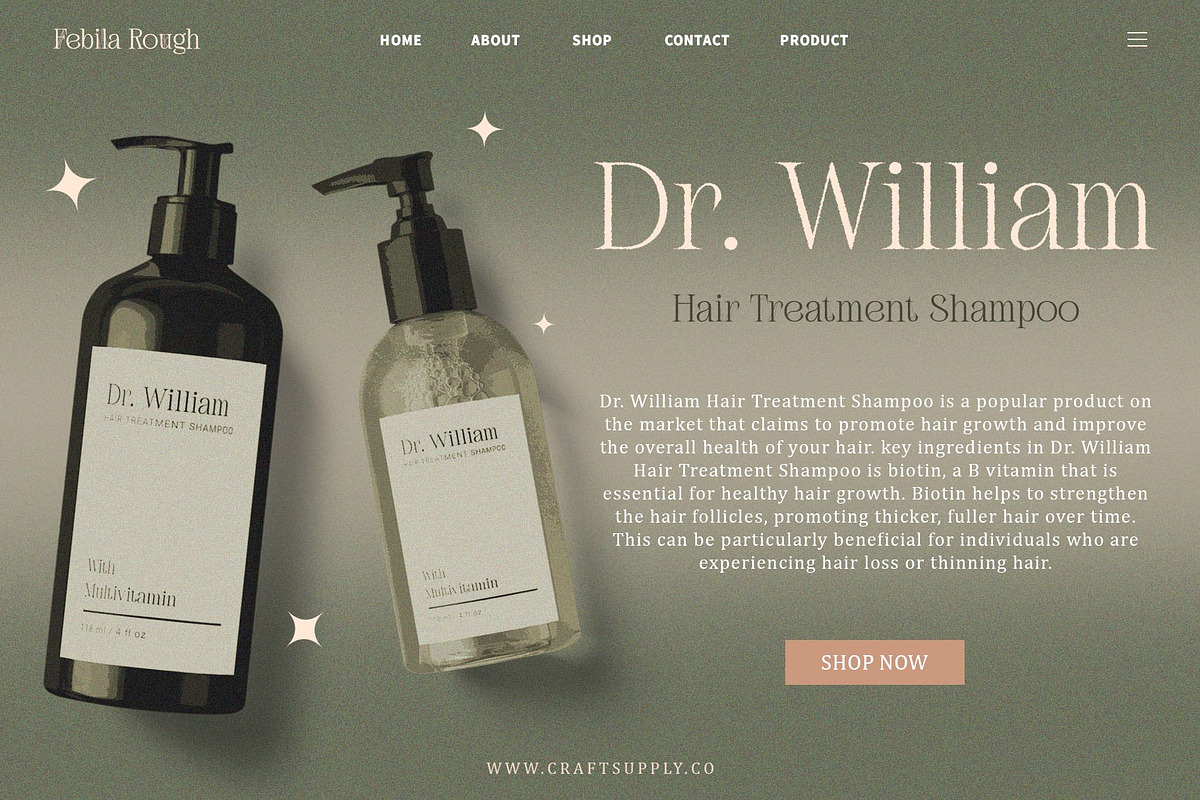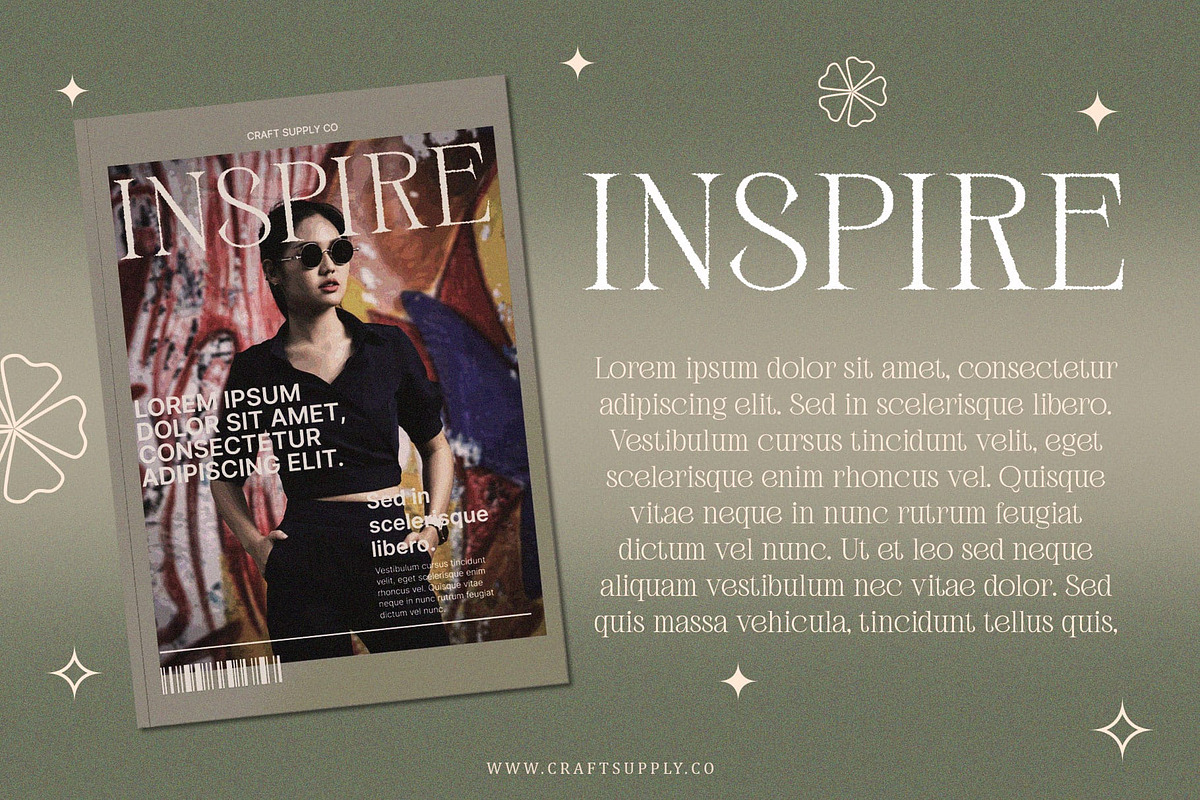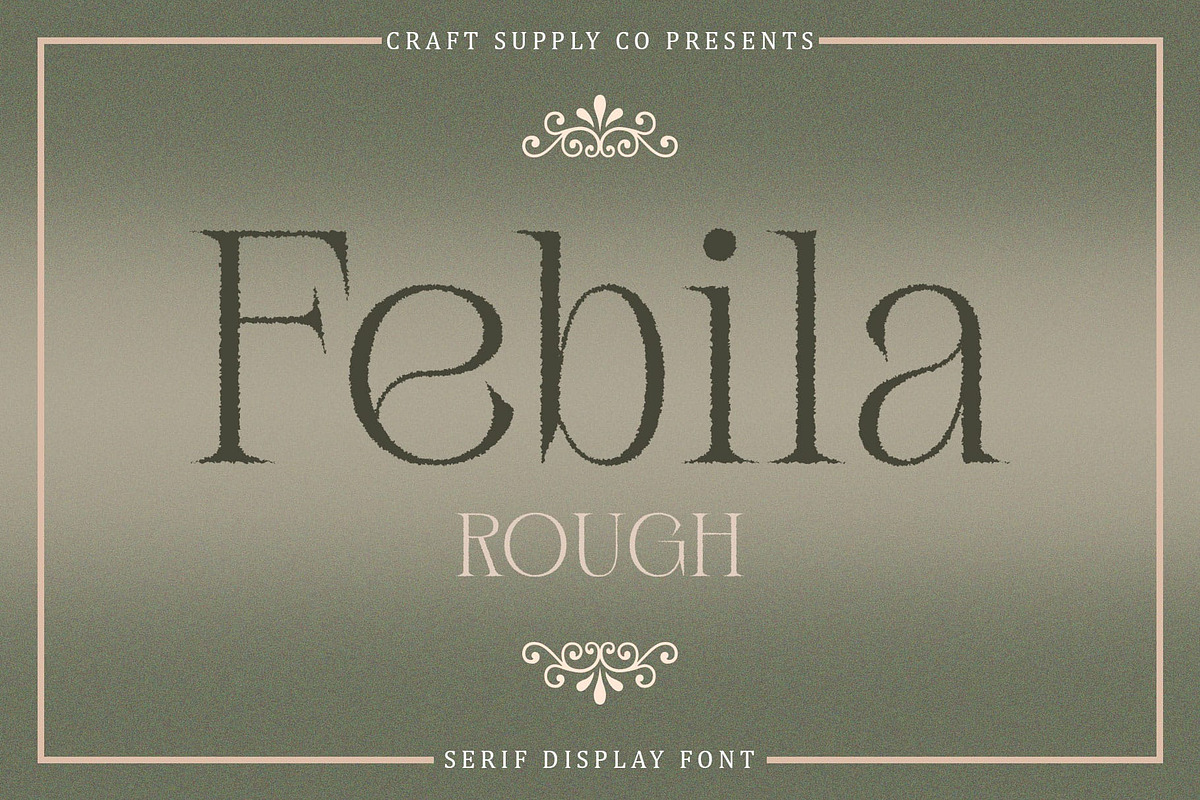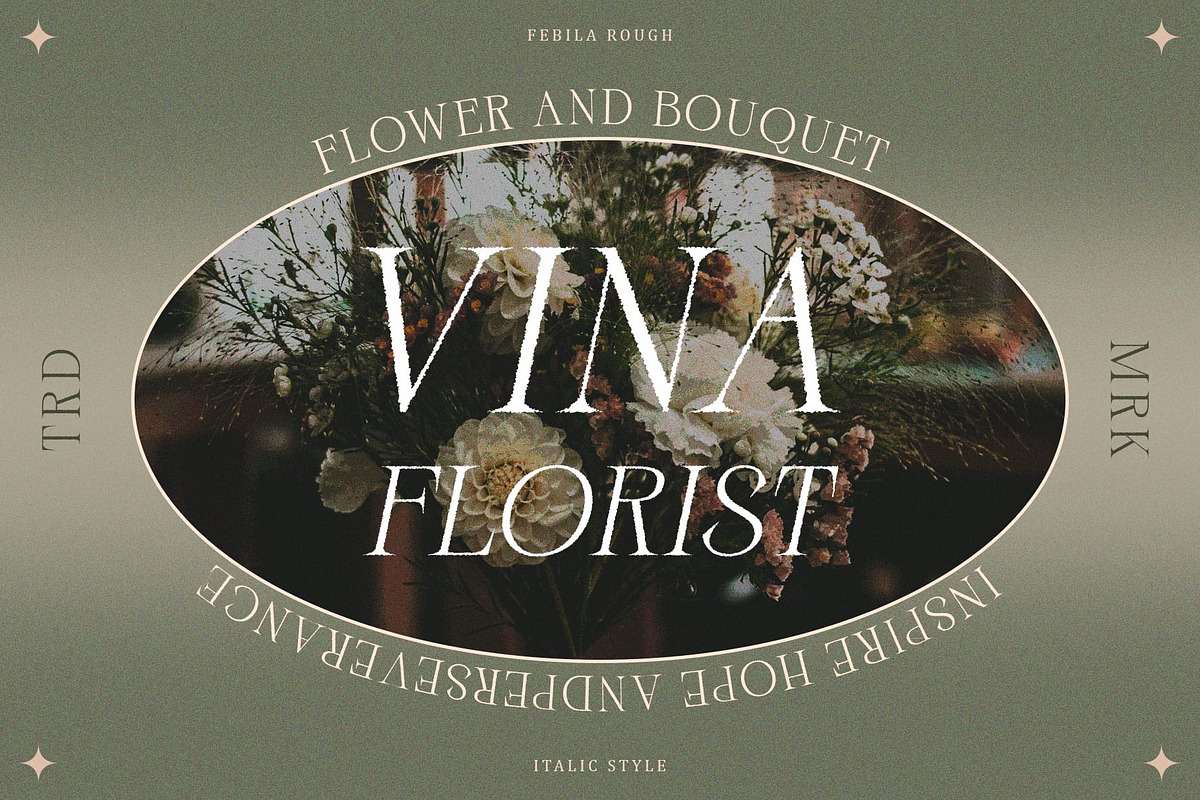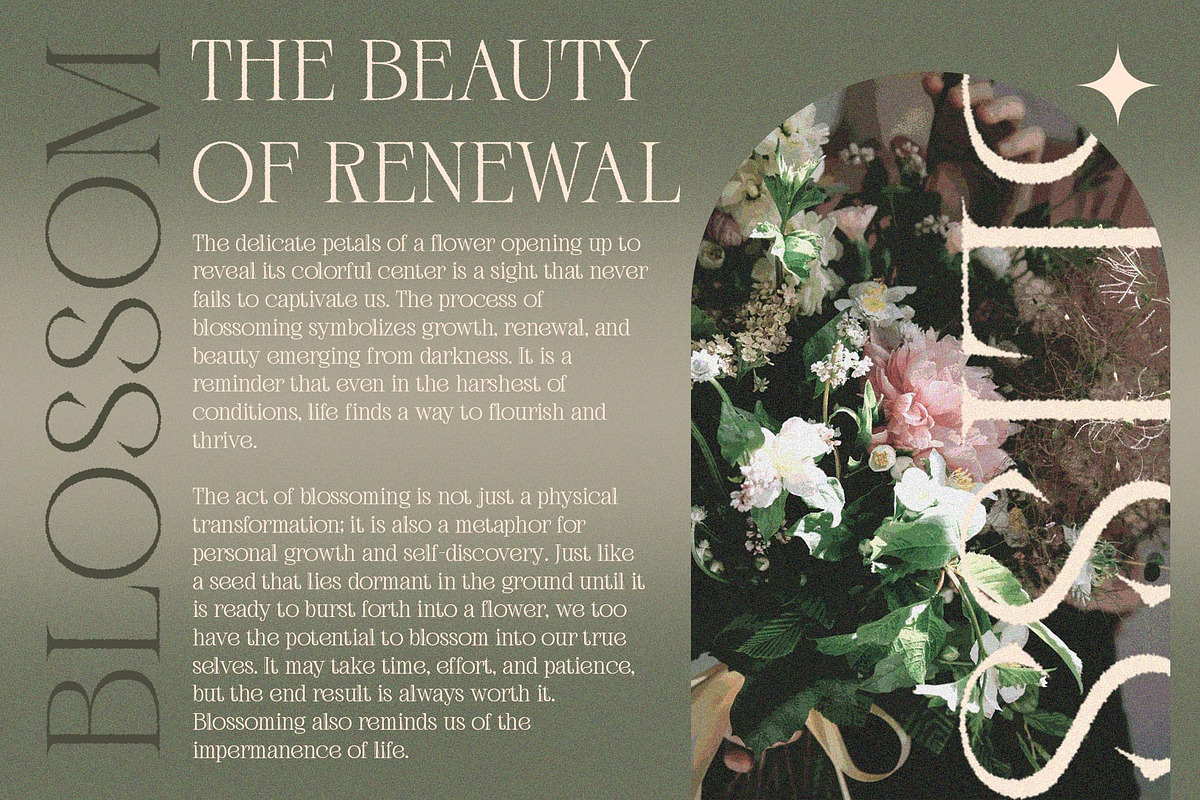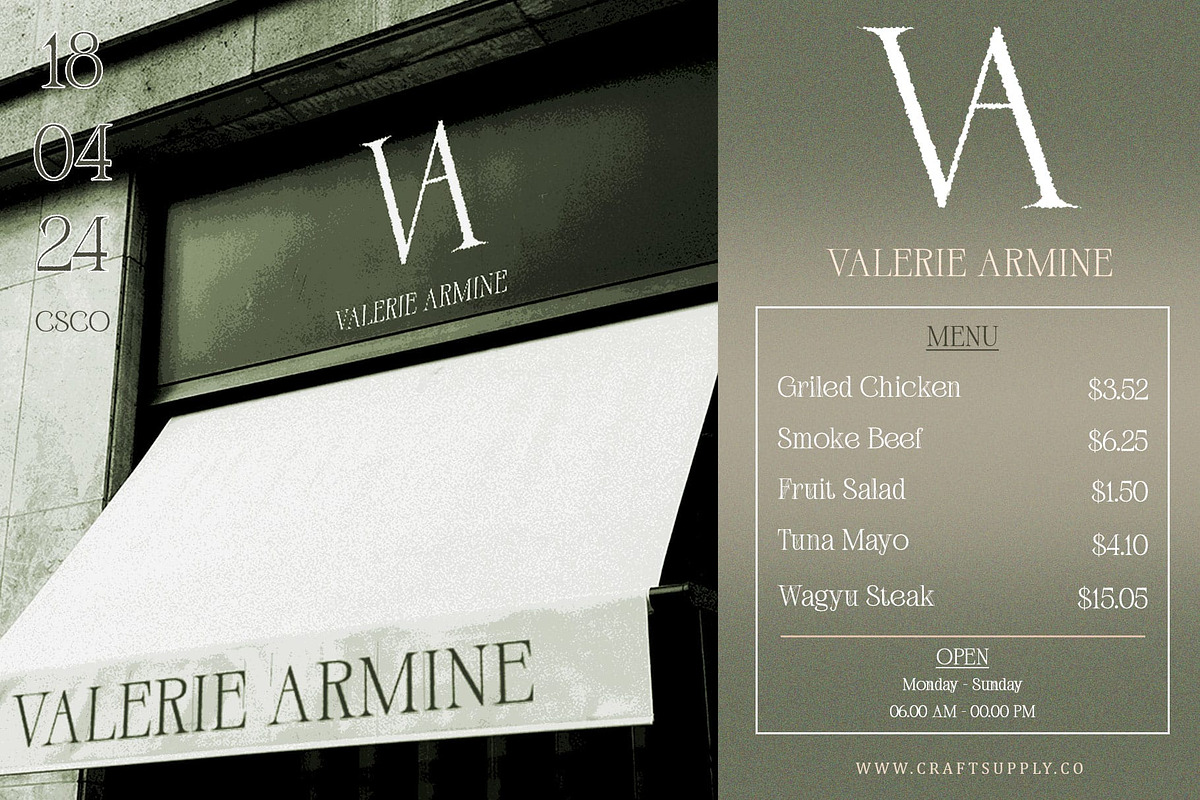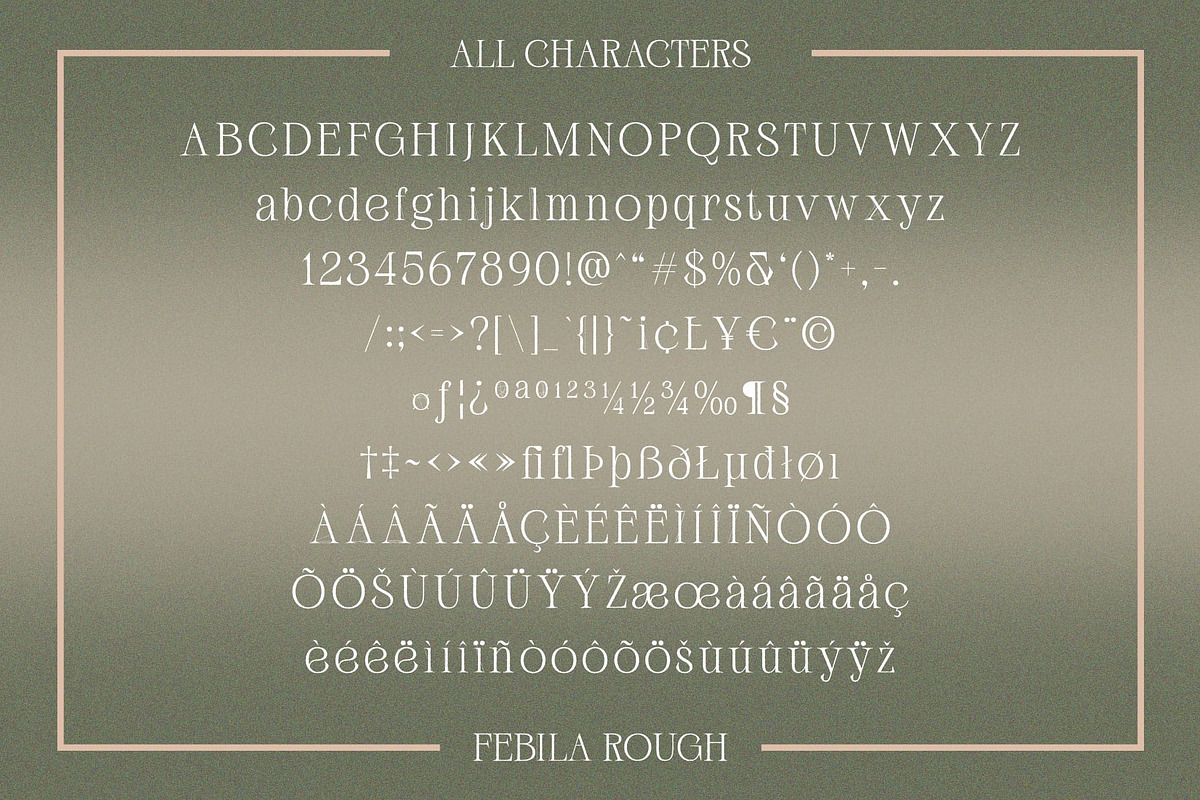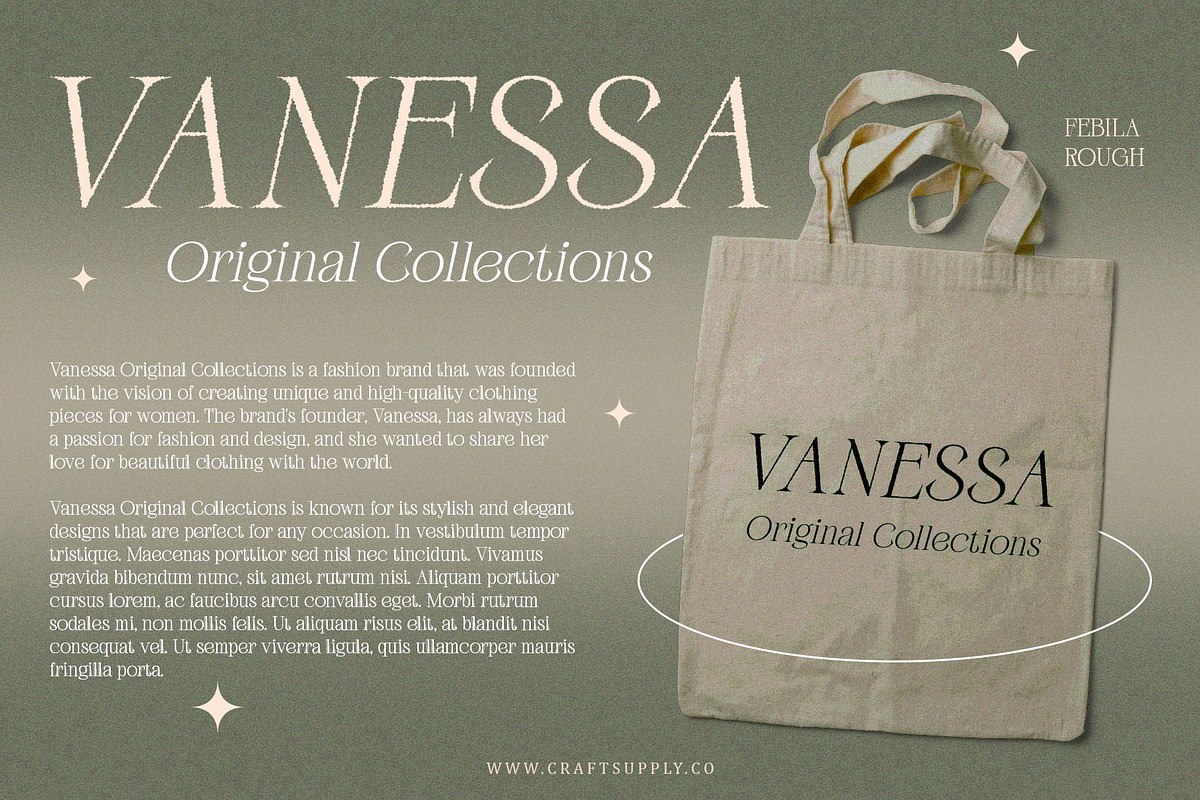
Febila Rough
Febila Rough: Striking Display Typography
High Contrast Serif Design Febila Rough features a striking high-contrast serif design that commands attention. Its bold strokes and sharp serifs create a dynamic visual impact, perfect for captivating displays.
Rugged Yet Refined With its rough texture effect, This font exudes a rugged yet refined aesthetic. The rough edges add character and authenticity, giving your designs a unique and handcrafted appeal.
Tailored for Display Needs Specifically crafted for display purposes, This font excels in grabbing the viewer’s attention. Whether used in headlines, posters, or branding materials, its bold and rough appearance ensures maximum impact.
Versatile Application Beyond its striking appearance, This font offers versatility in application. It complements a wide range of design styles, from vintage to modern, adding depth and personality to any project.
Authentic This font stands out as a bold and authentic choice for display typography. Its high-contrast serif design and rough texture effect make it an ideal option for creating visually stunning displays that leave a lasting impression. Step up your design game with This font and make your message heard loud and clear.